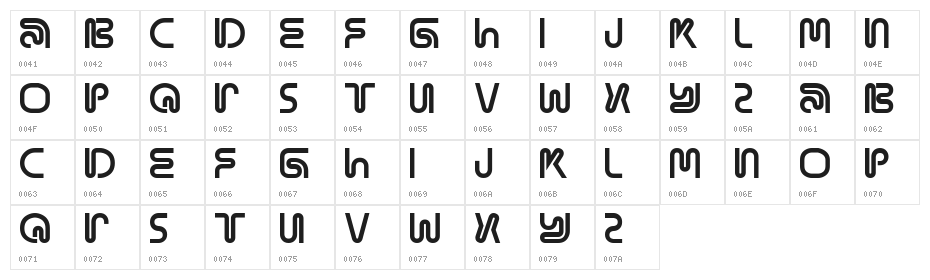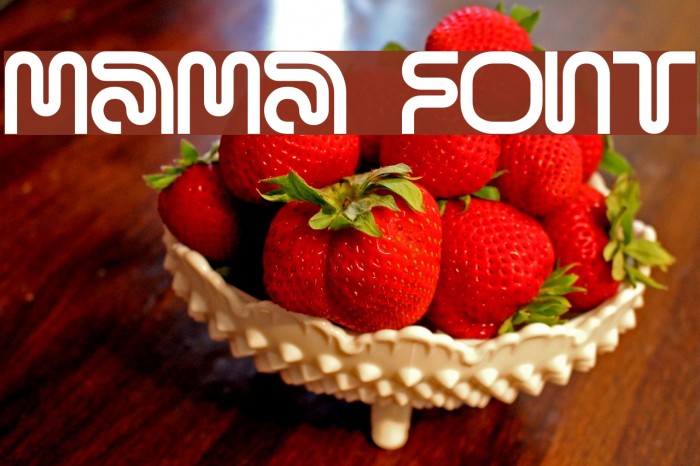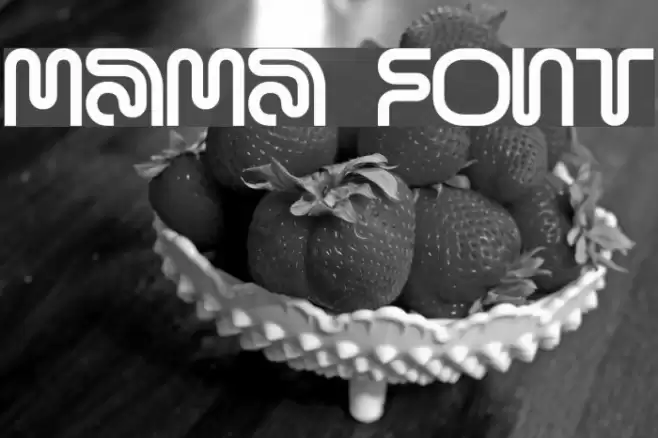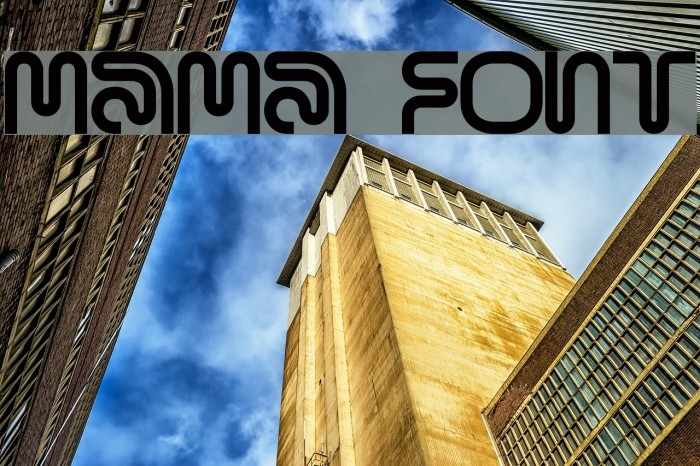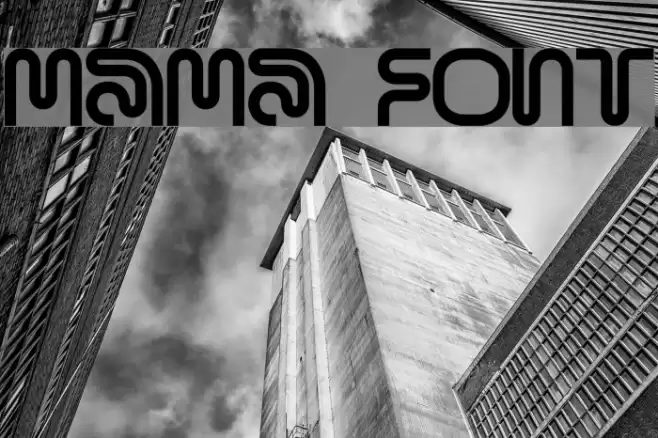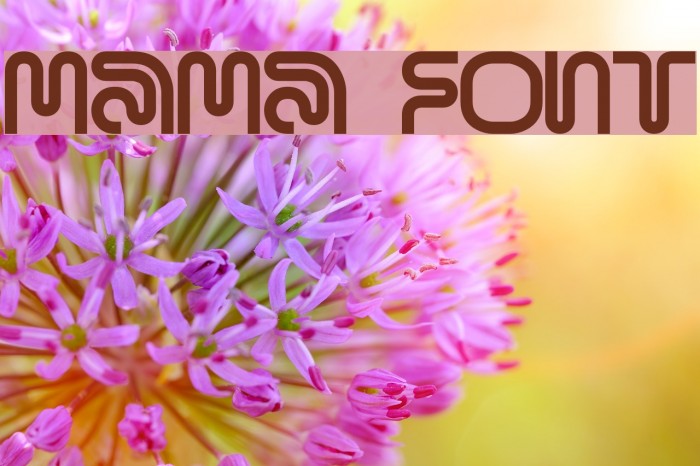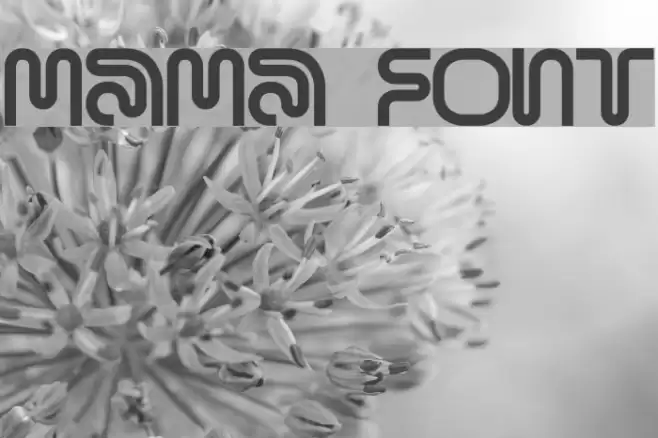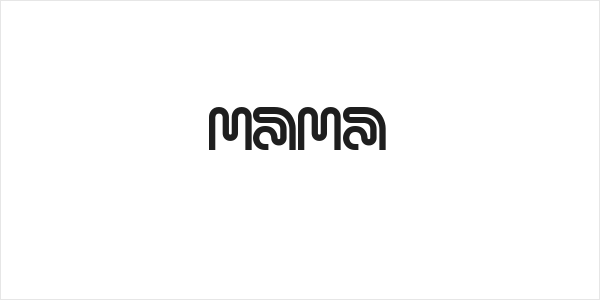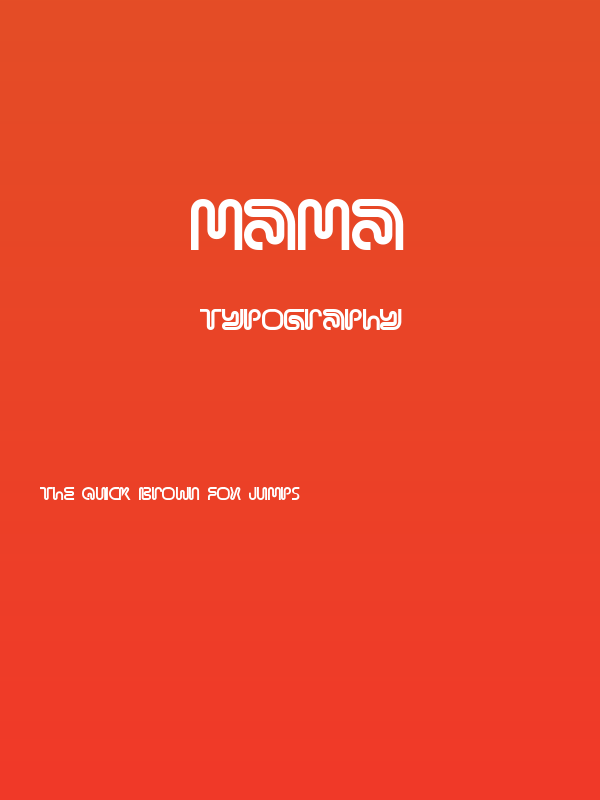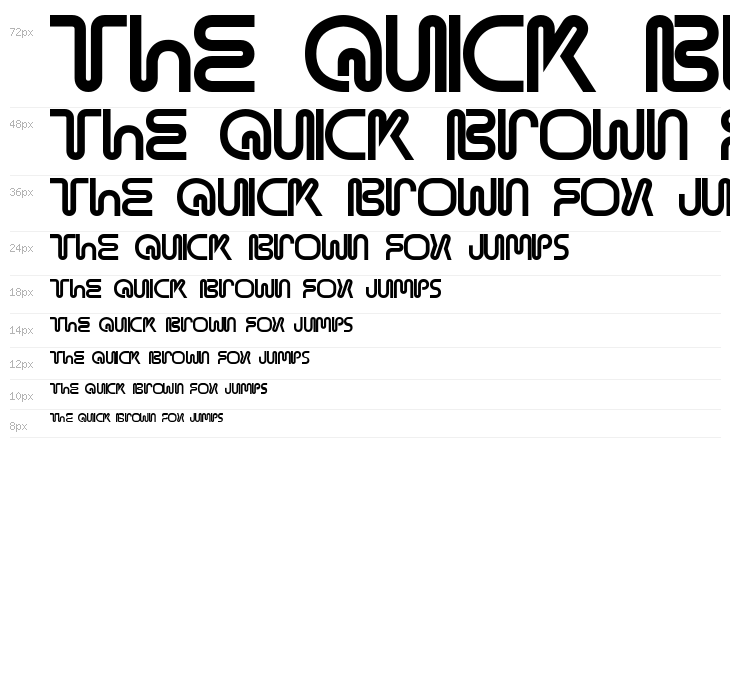
Mama Font
This font features a bold, geometric design with a futuristic flair. The characters are constructed with thick, uniform lines that form rounded shapes and sharp angles, creating a sense of modernity and innovation. The uppercase letters are particularly striking, with their unique, interconnected forms that suggest movement and fluidity. The lowercase letters maintain the same boldness and geometric precision, ensuring consistency across the typeface. The numerals and special characters follow the same design principles, making the font versatile for various applications. Its distinct style makes it ideal for projects that require a modern and eye-catching aesthetic.
| Proposed Projects | Ideal for tech branding, futuristic posters, digital interfaces, and modern advertising. |